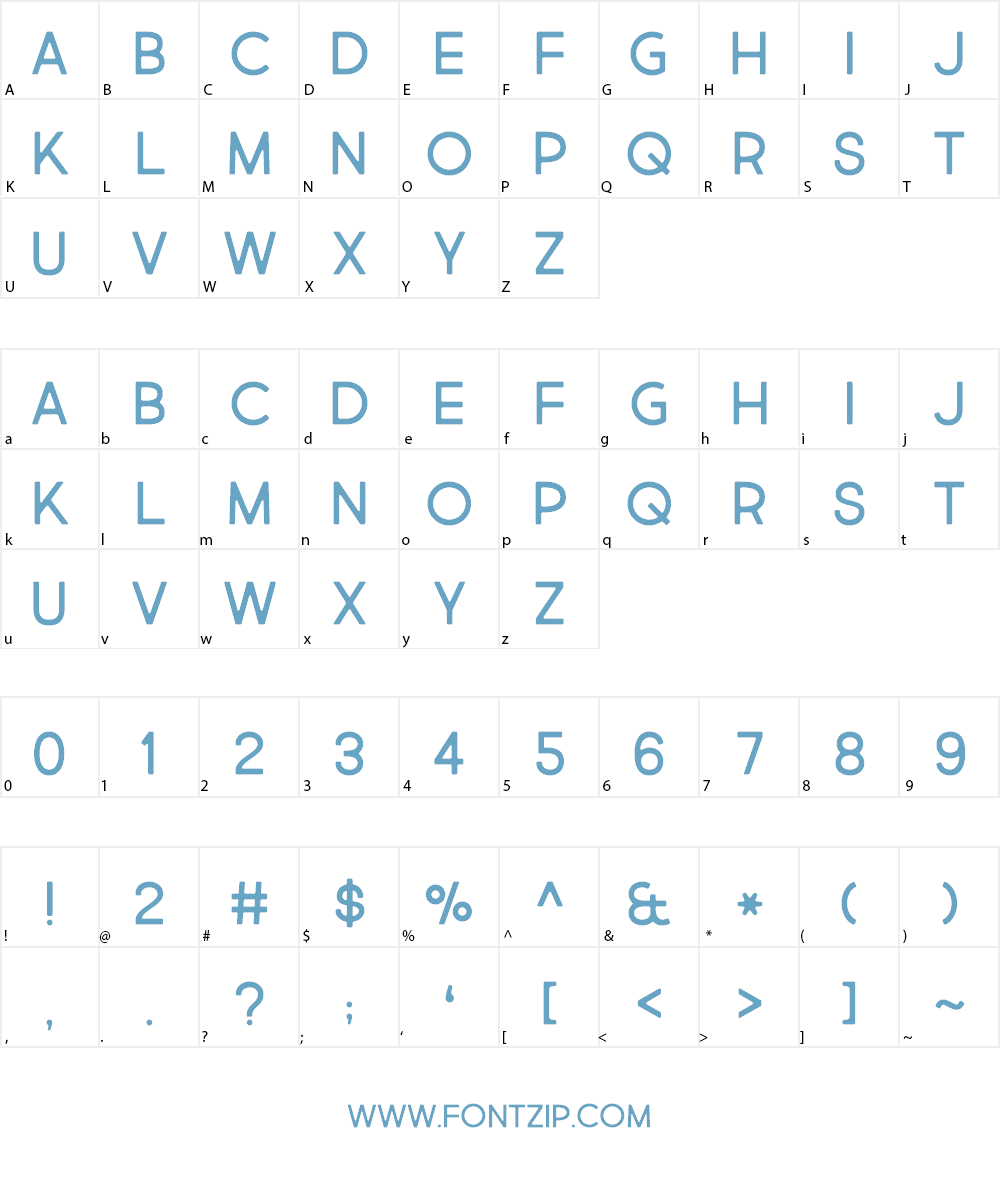
Market Fresh is an open, clean sans. It's totally versatile, great for headlines, bylines, or text. Refreshingly simple and clean. Inspired by old-style retro headlines.
UPDATED: New version now contains lowercase!
Includes 500 characters: Extended Latin, Greek, Cyrillic & more.